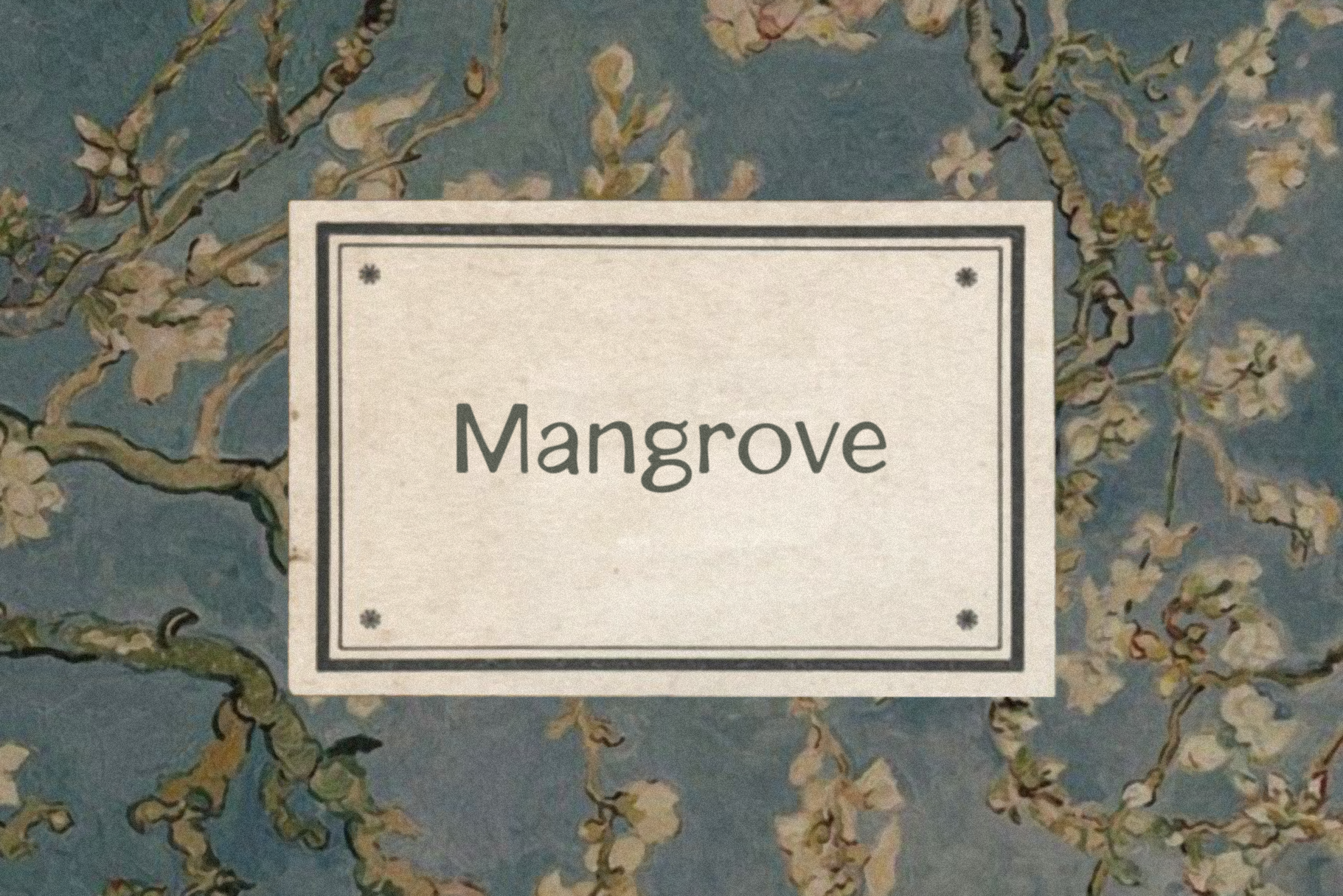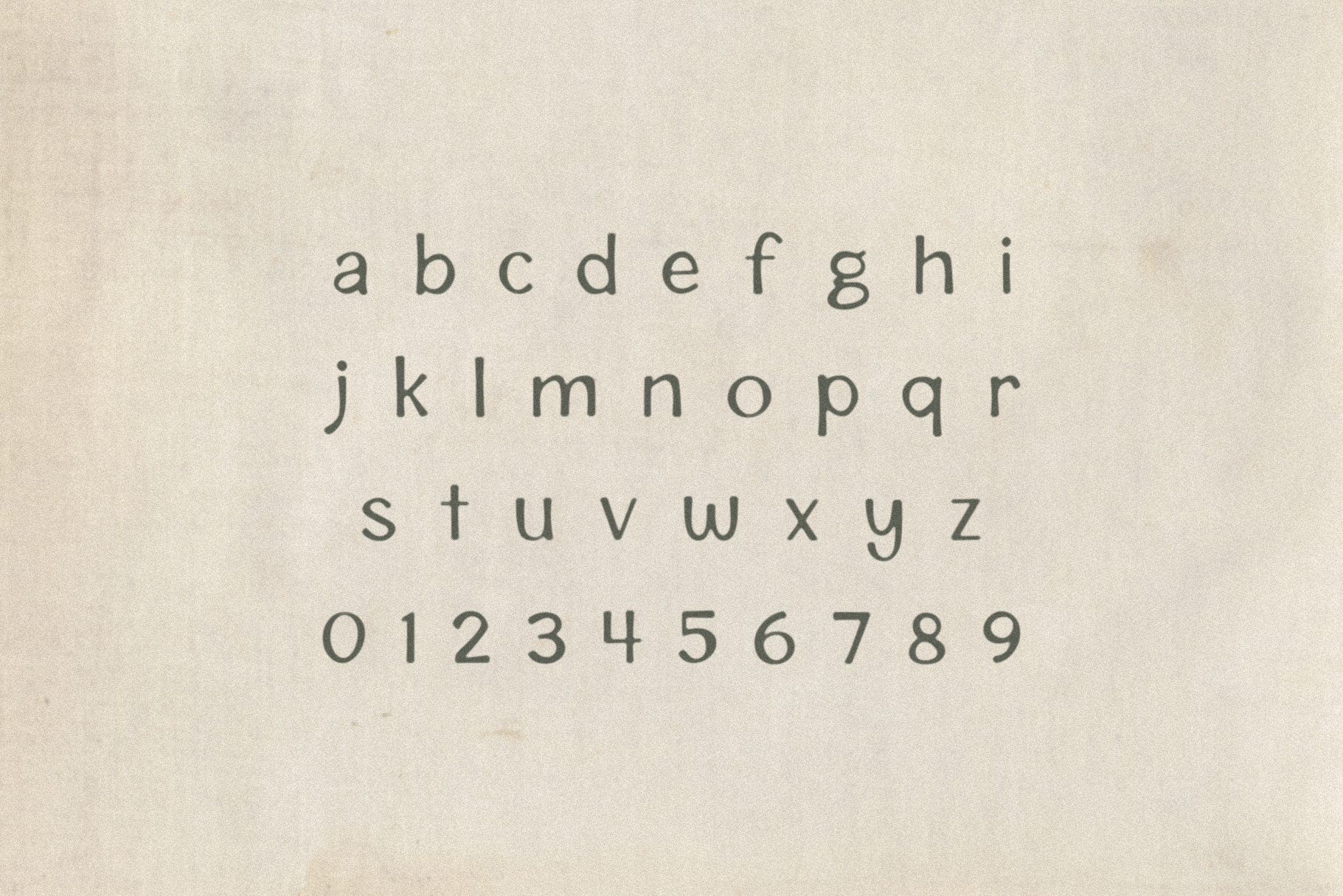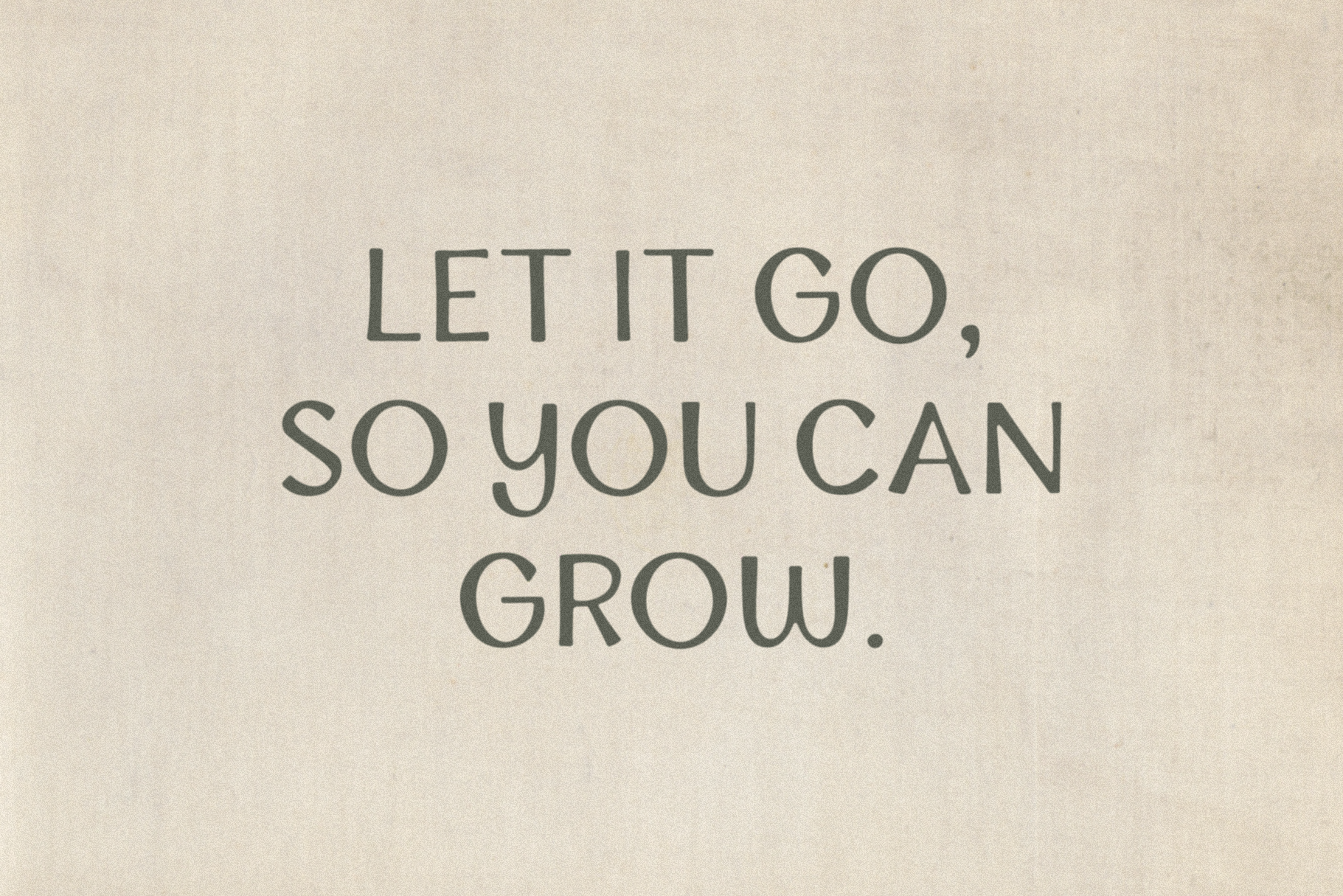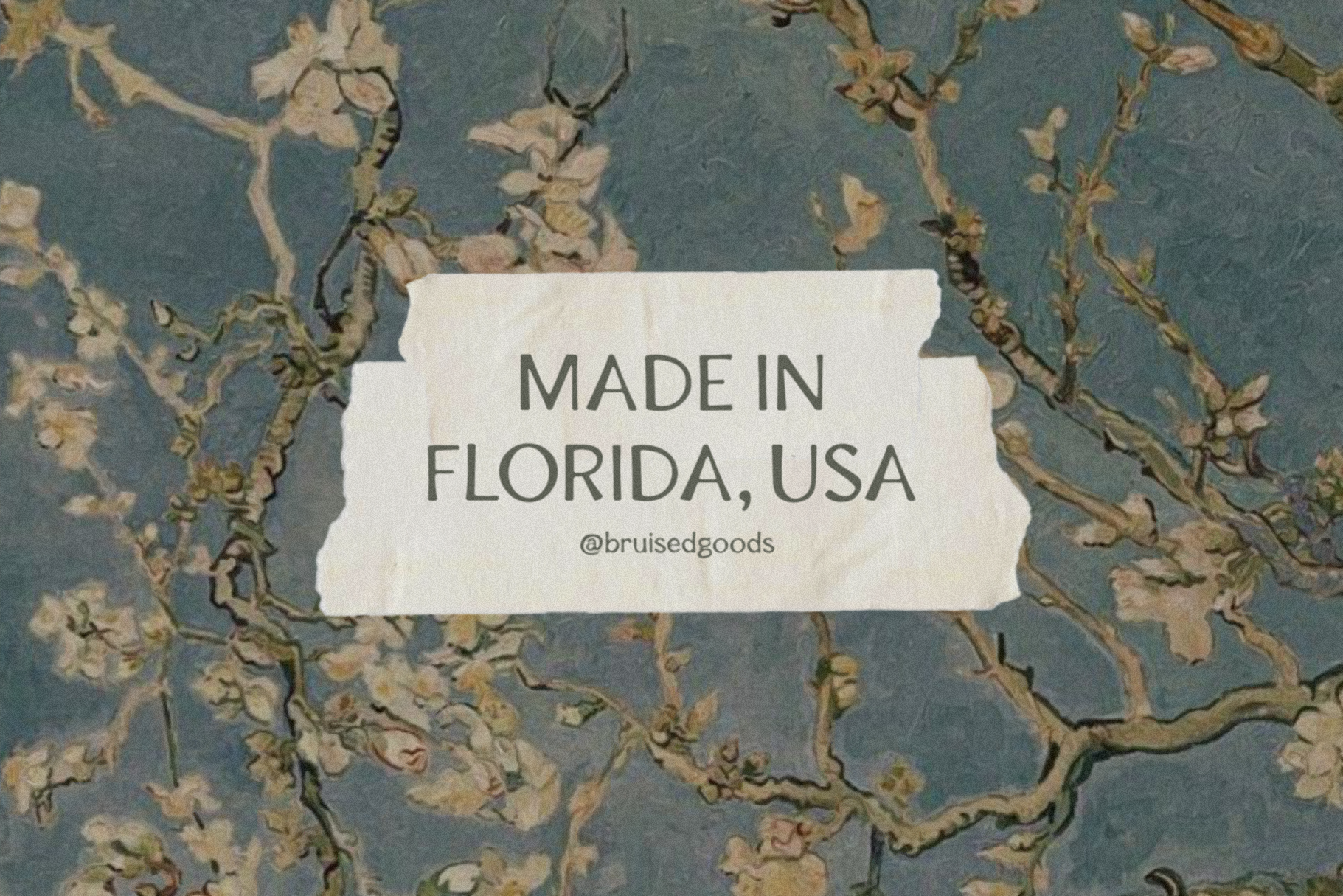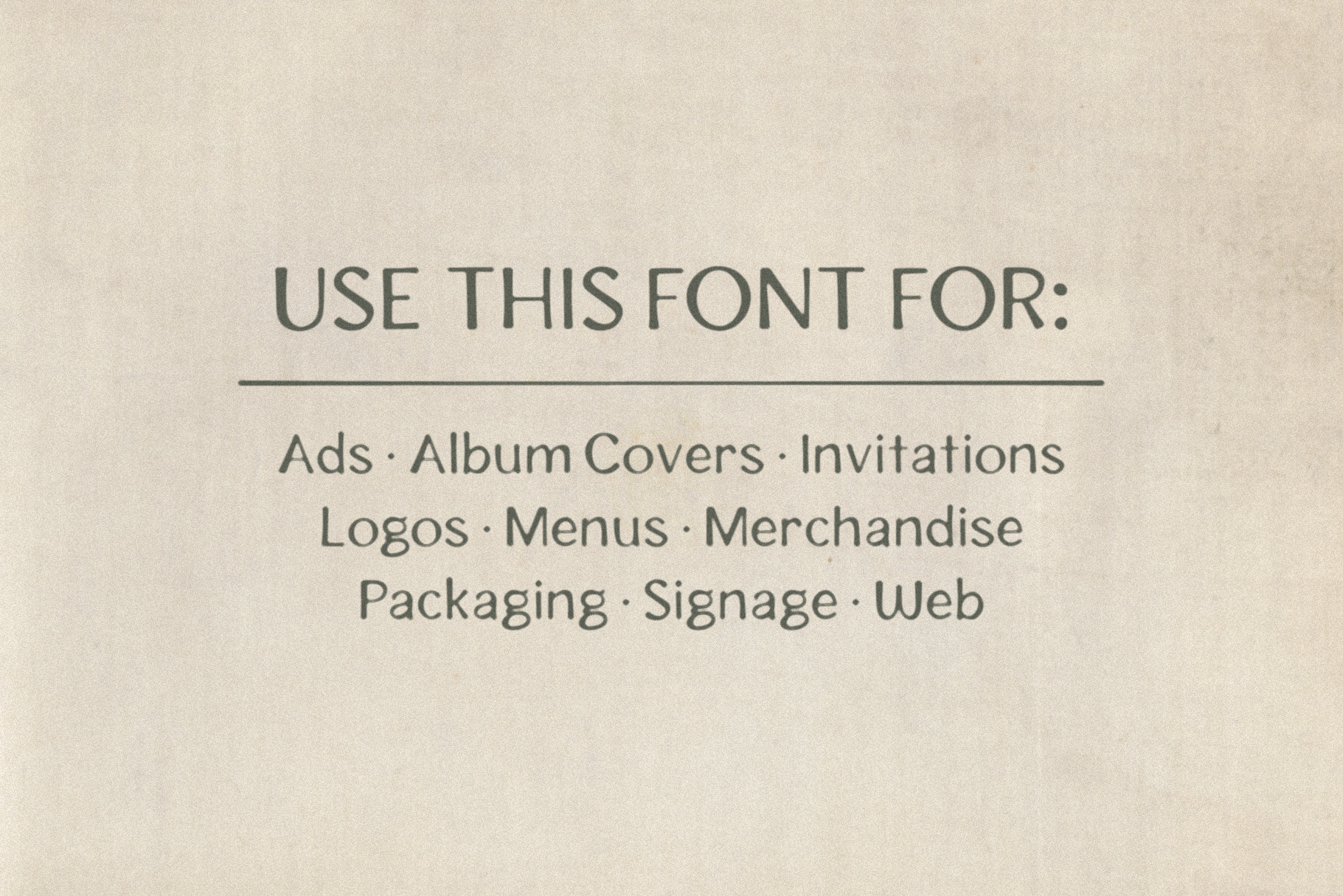
Mangrove
MANGROVE – A simple, hand crafted sans serif.
Uppercase and Lowercase
Standard English alphabet
Numbers, Currency Symbols, Standard Punctuation